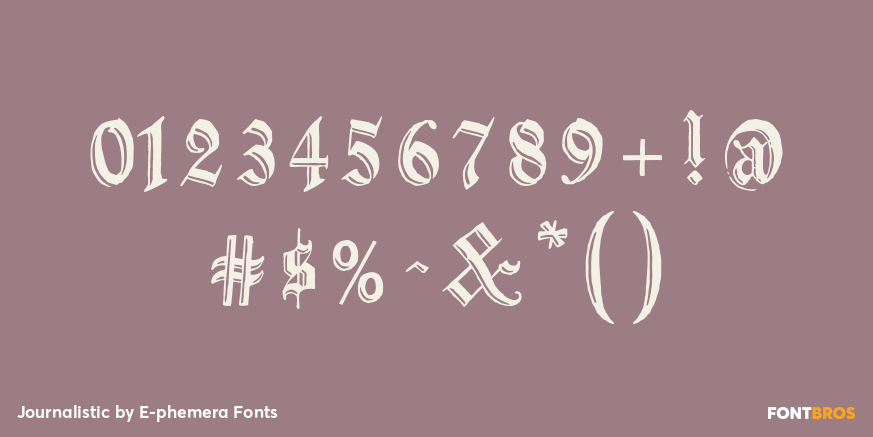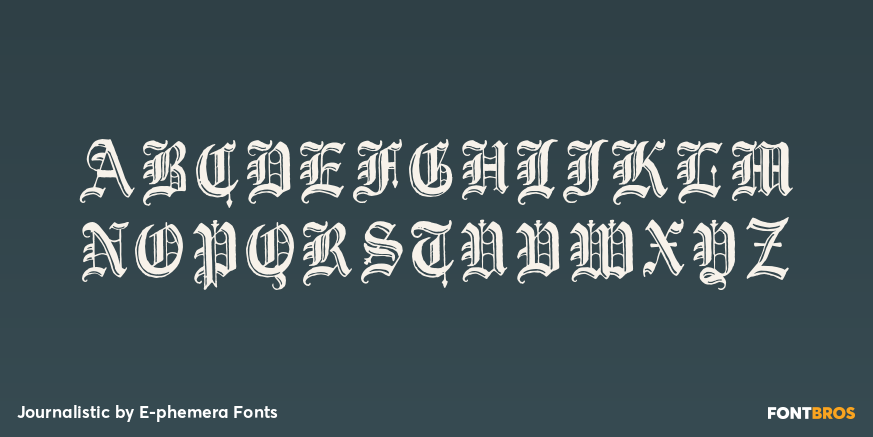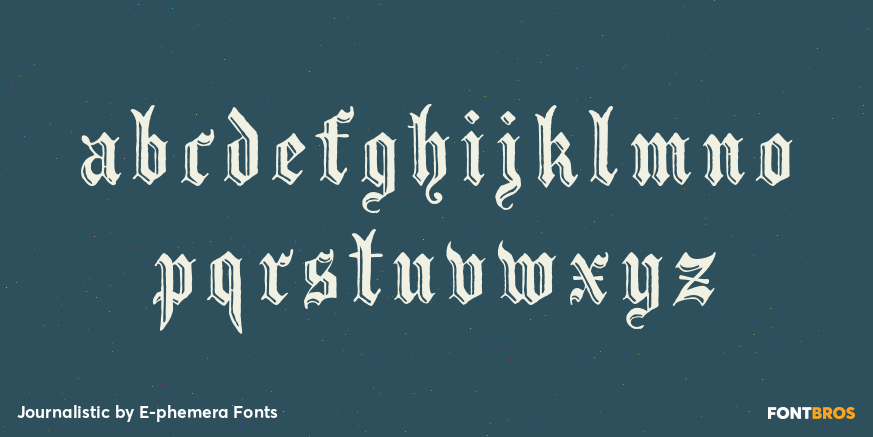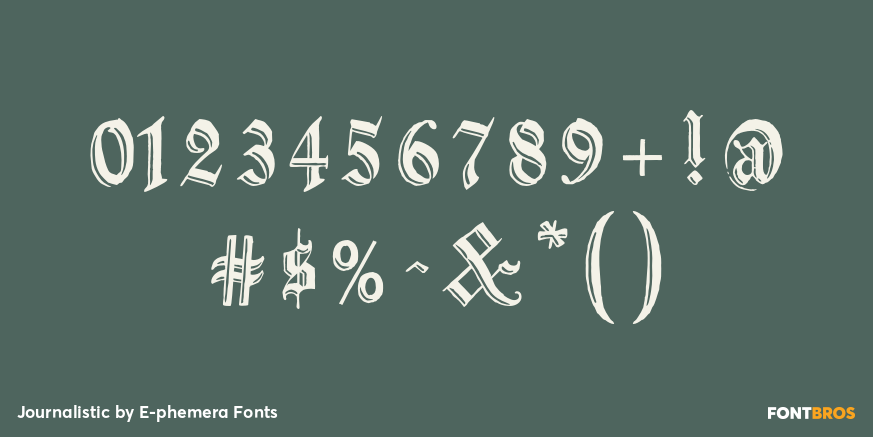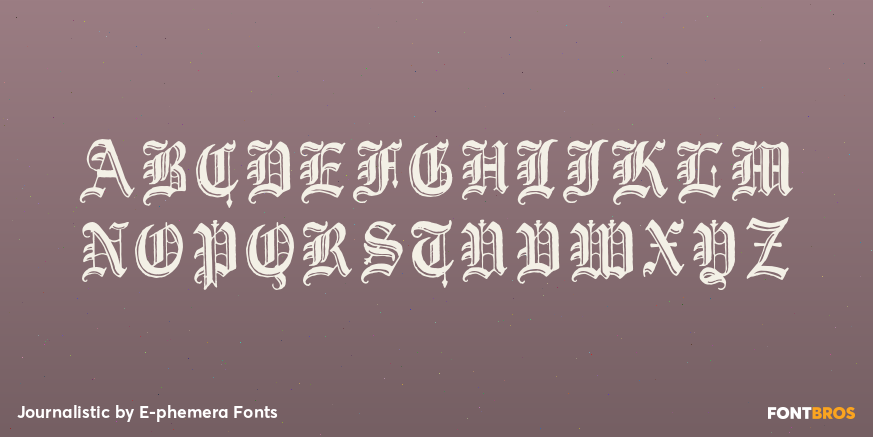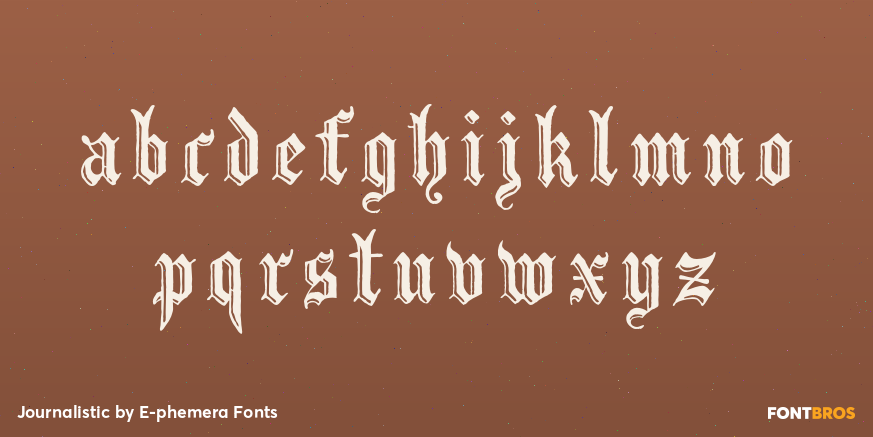
Journalistic
Font Family by E-phemera Fonts
Journalistic is one in a series of fonts designed for use in creating replica vintage newspapers. It is inspired by the nameplate of a New England newspaper from the 1920s. Its rough character is apparent at headline sizes, and it remains nicely legible at smaller sizes for diplomas and other formal documents.
The OpenType font contains a variety of discretionary ligatures and contextual alternates, including the long s and other glyphs for classic German typography. Long s substitution can be achieved through either historical or titling alternate OpenType features.